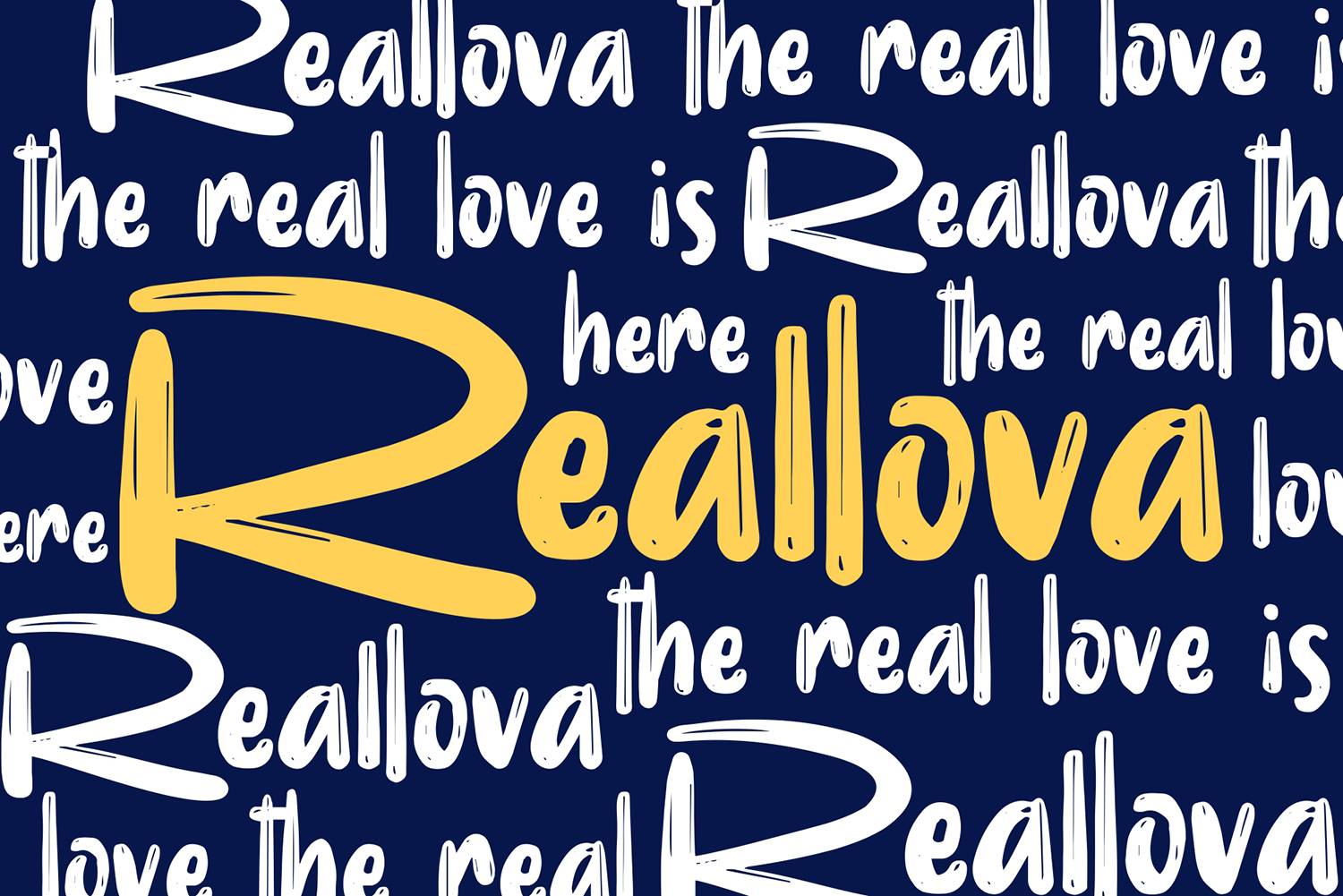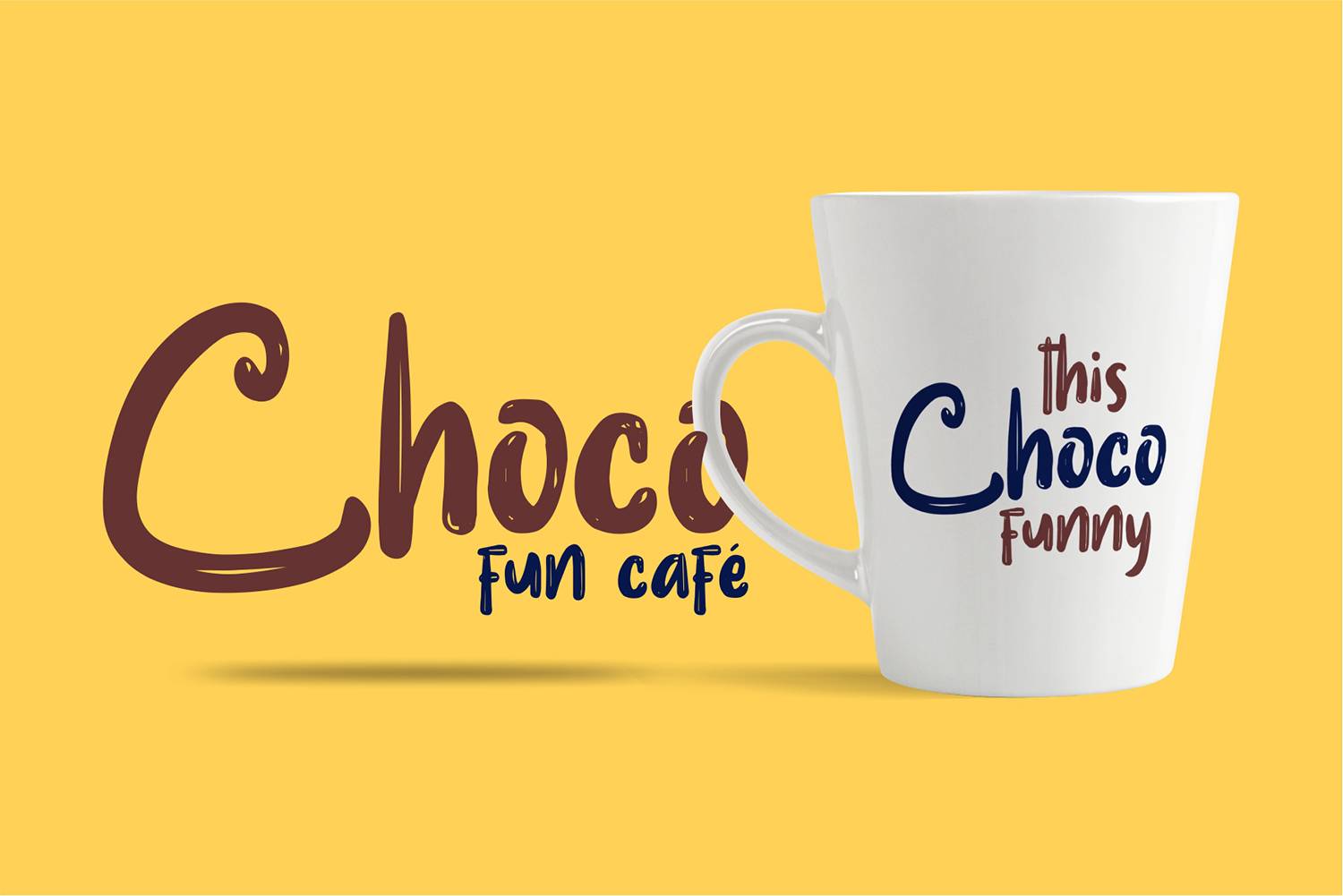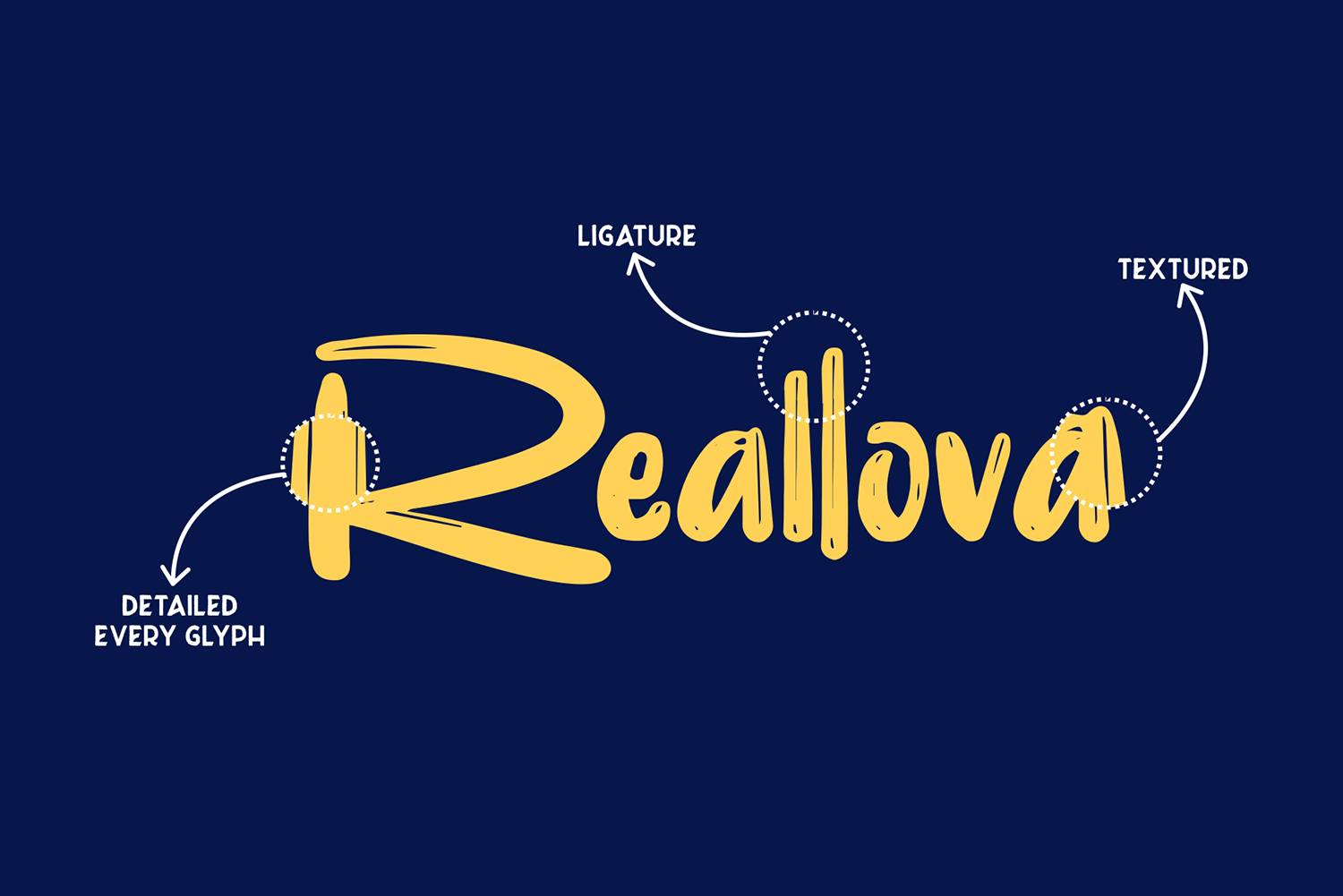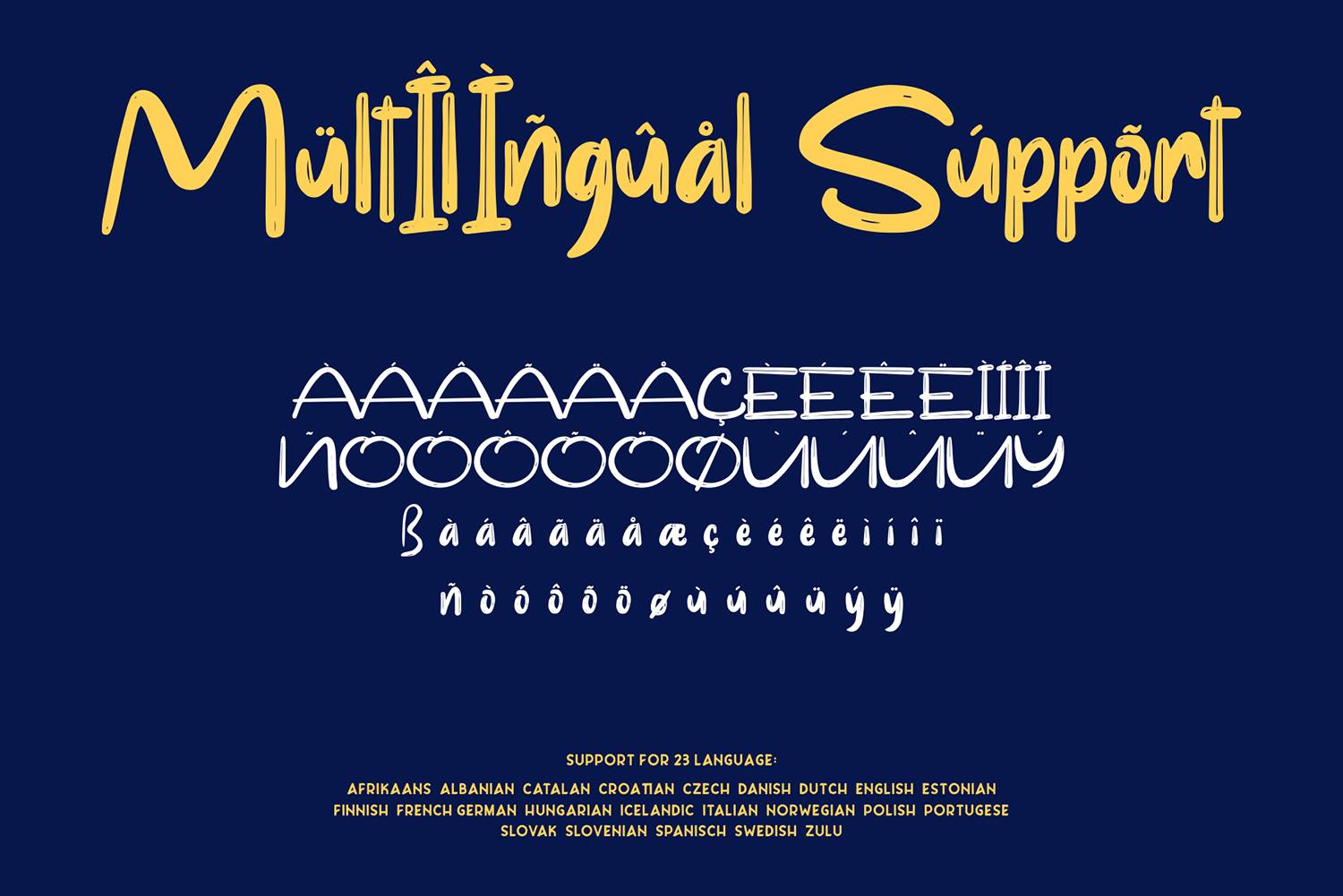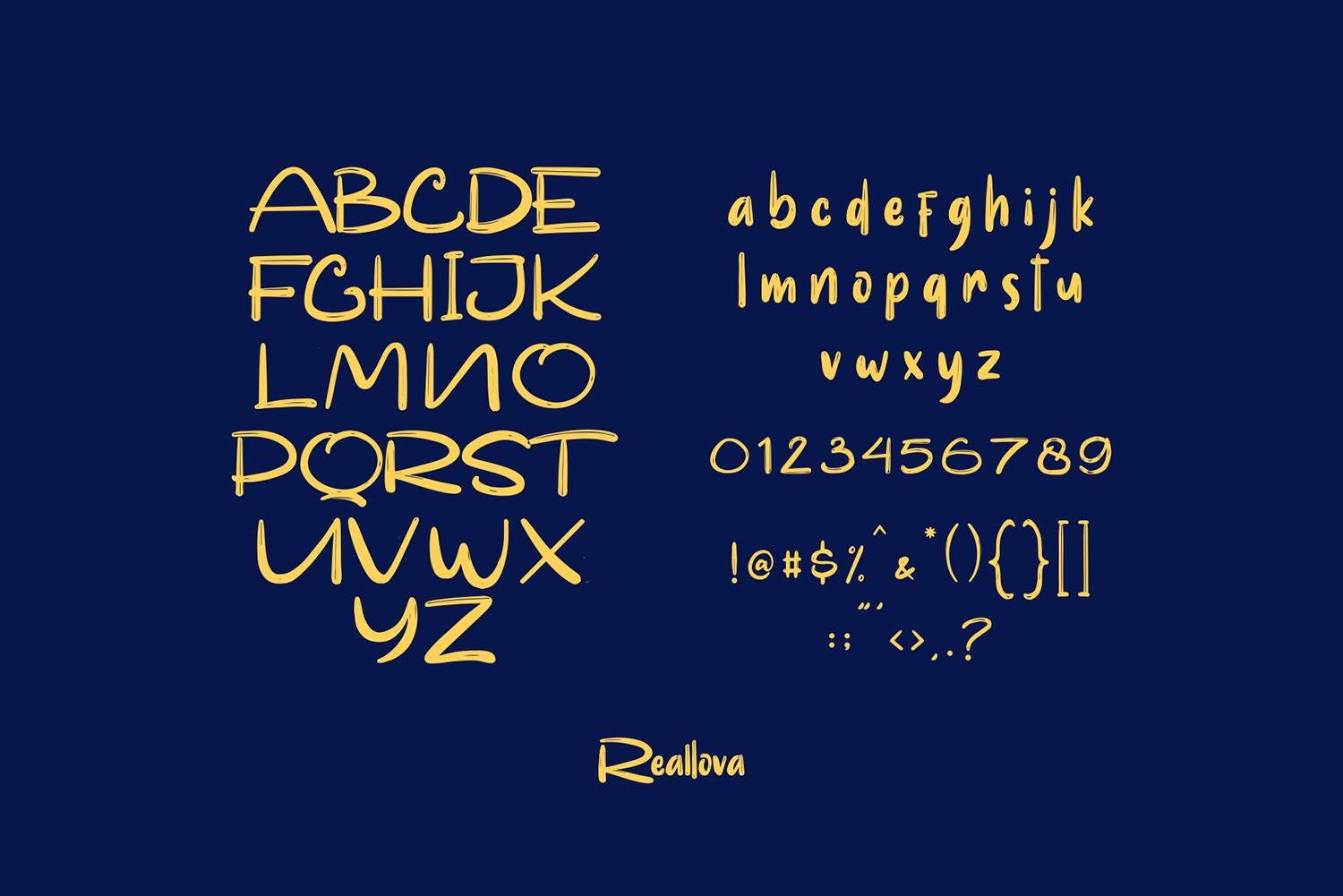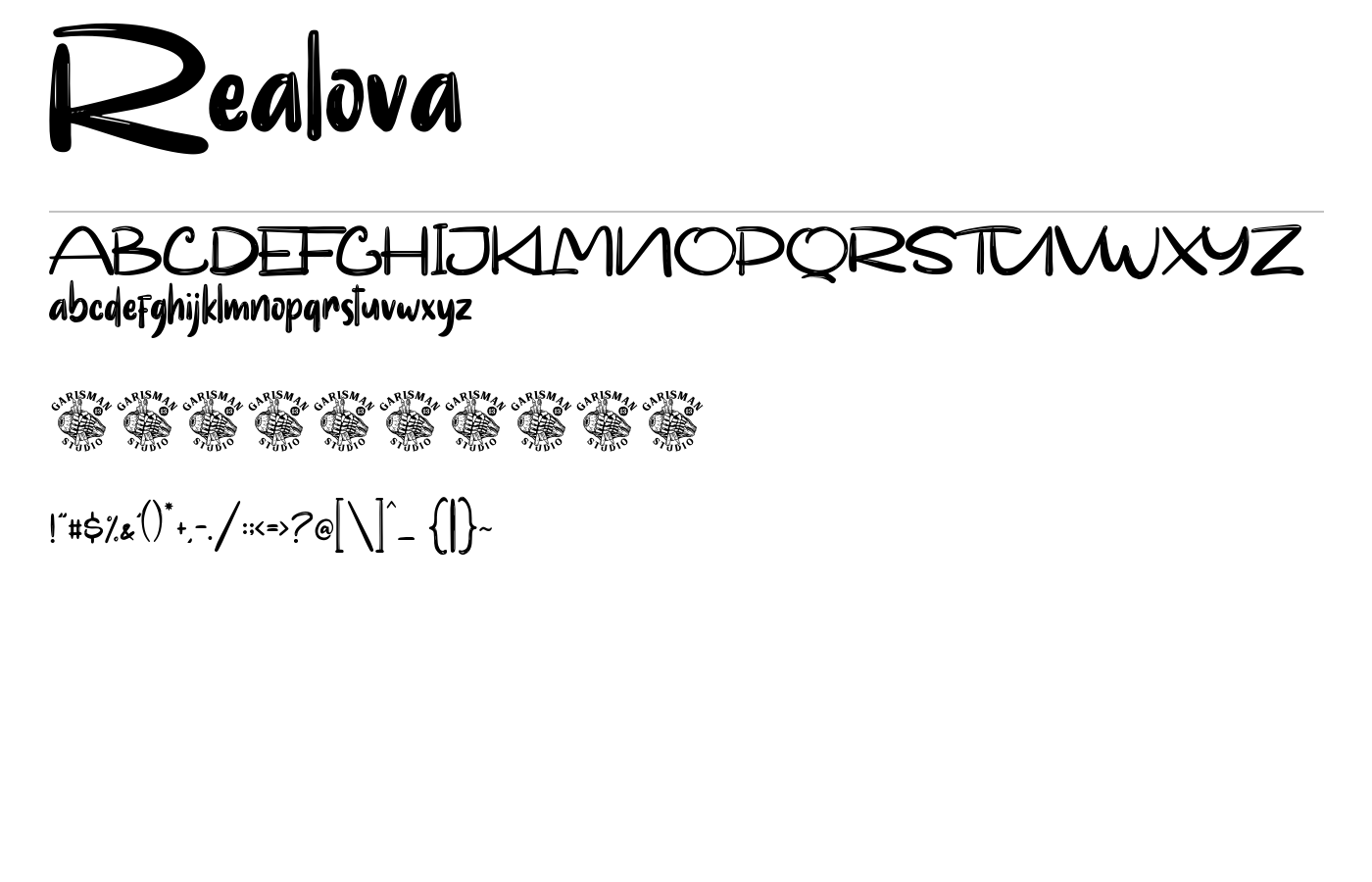
Reallova is a playful handwritten font characterized by its tall, narrow letterforms and lively, uneven strokes that give it a casual, friendly feel. Its distinctive style works well for creative projects and informal branding where a personal, approachable touch is desired, such as logos, posters, and social media graphics. This font’s unique energy and legibility make it a great choice for adding personality without sacrificing readability.
Reallova Font
About Reallova Font
| Font family | Reallova Font |